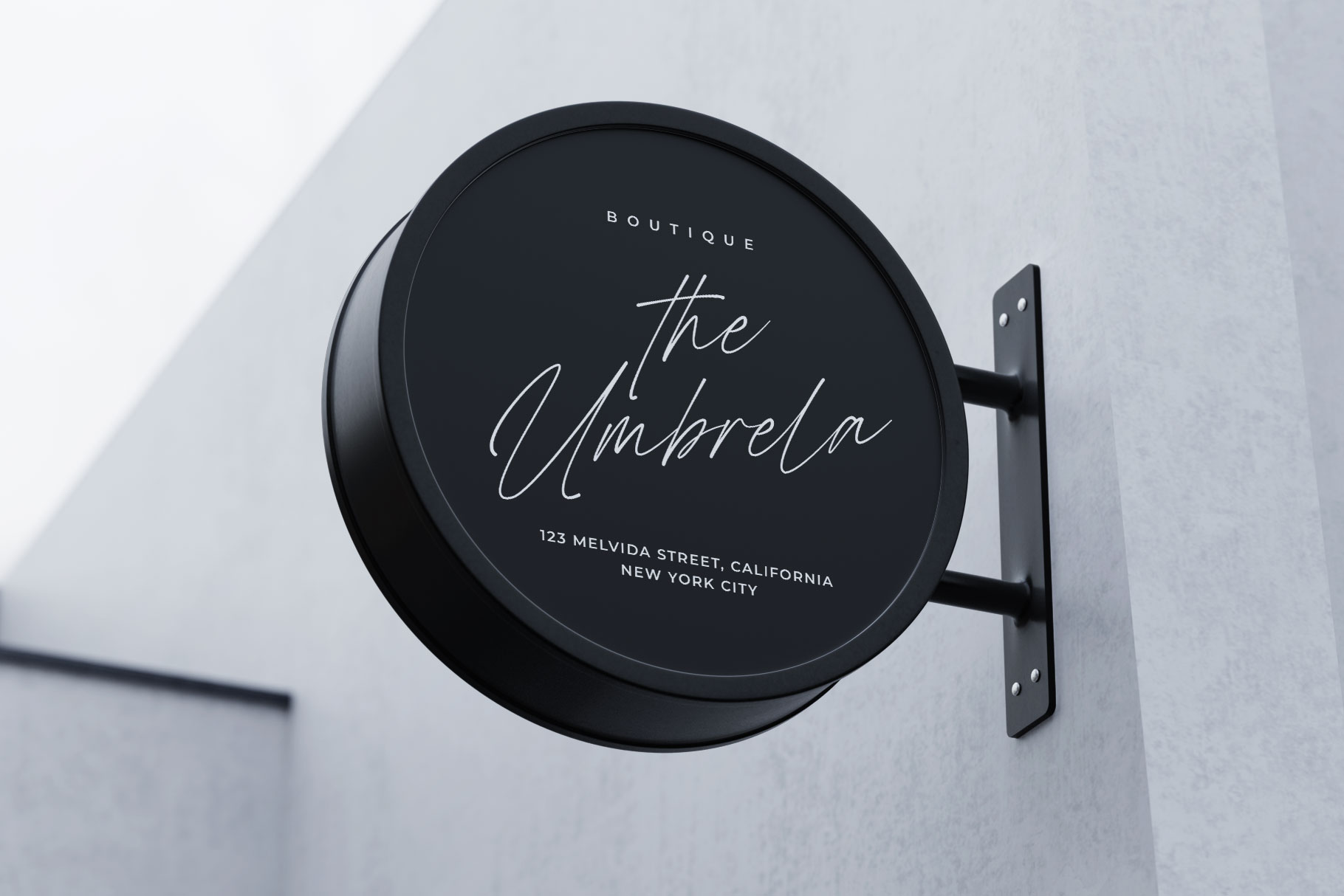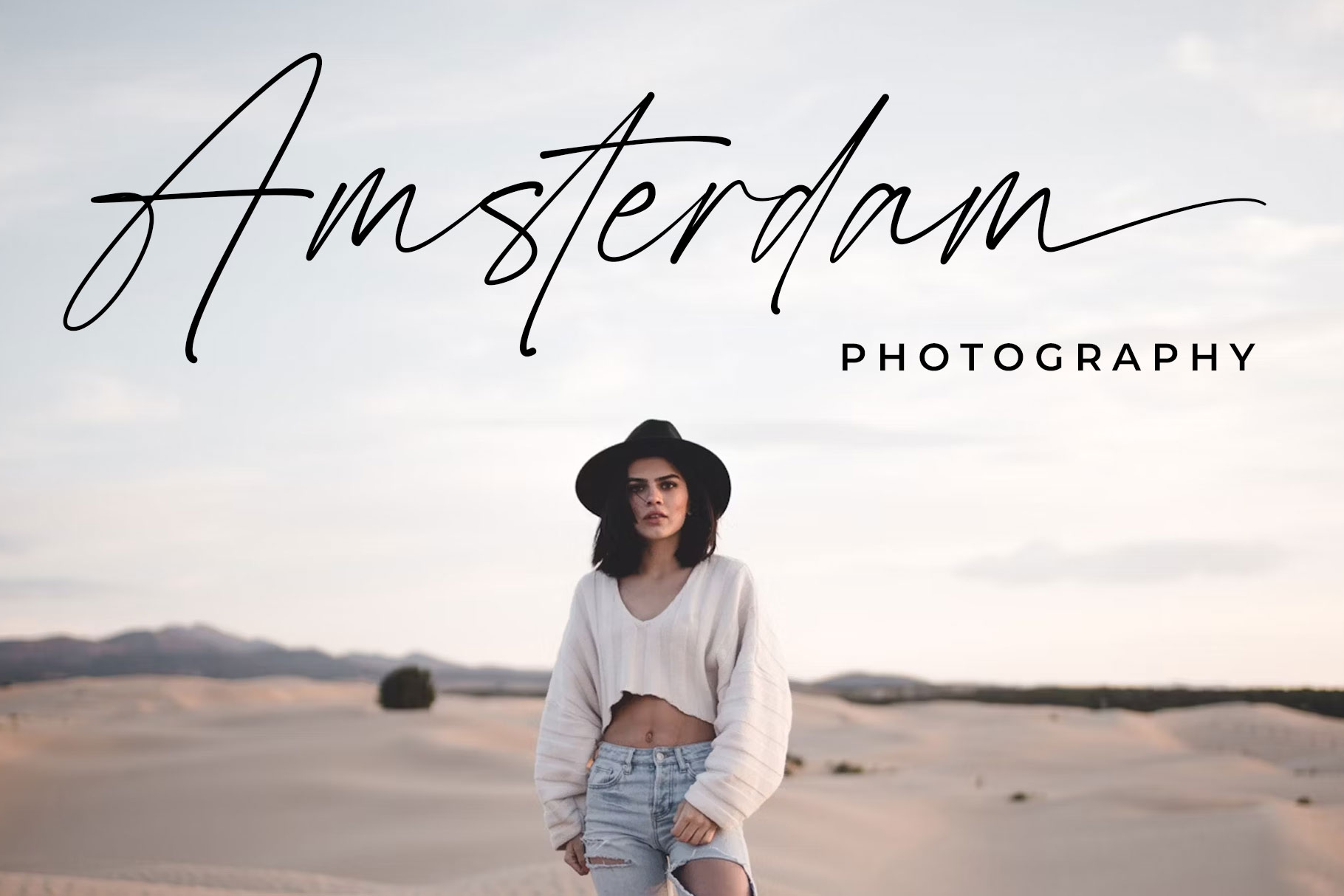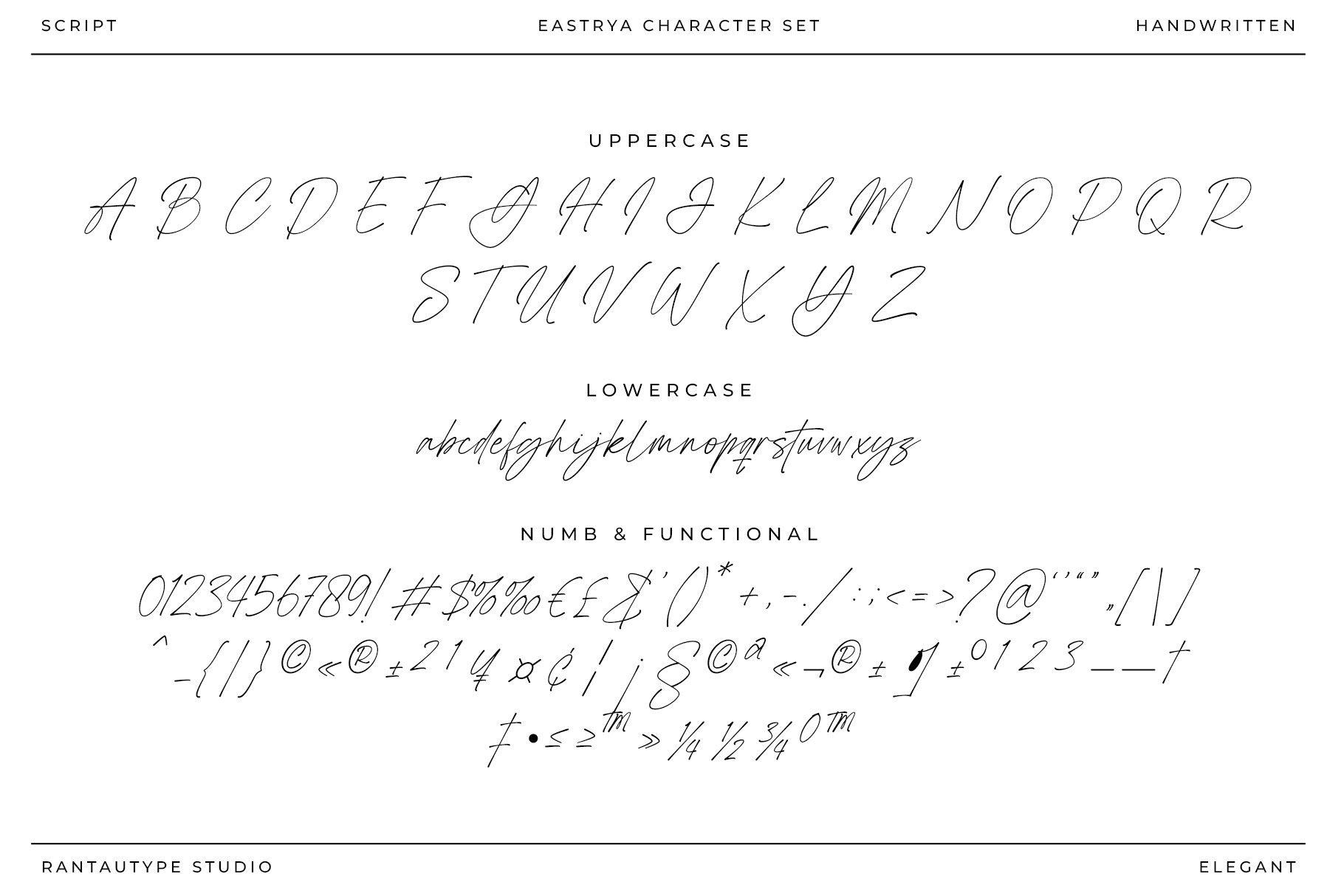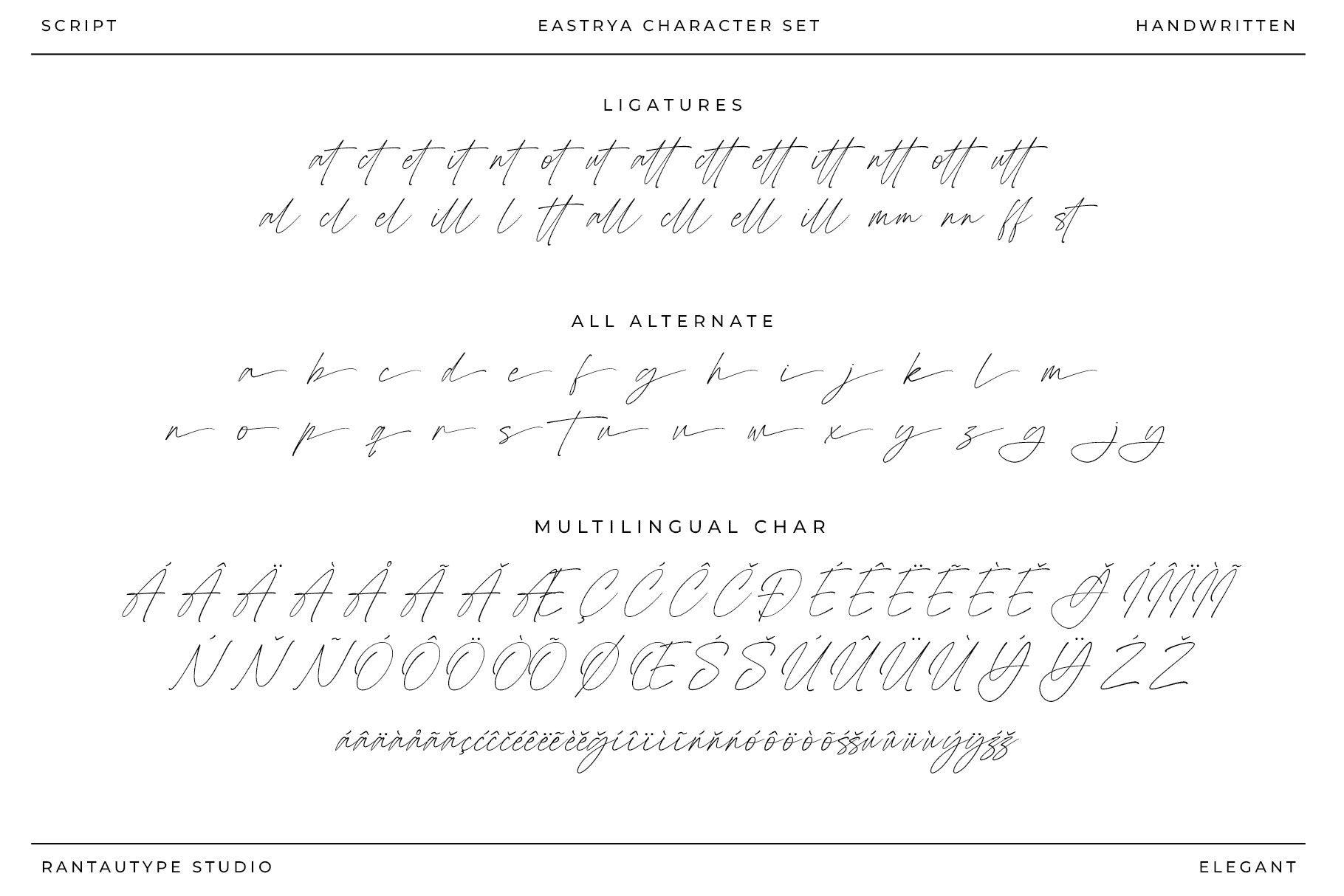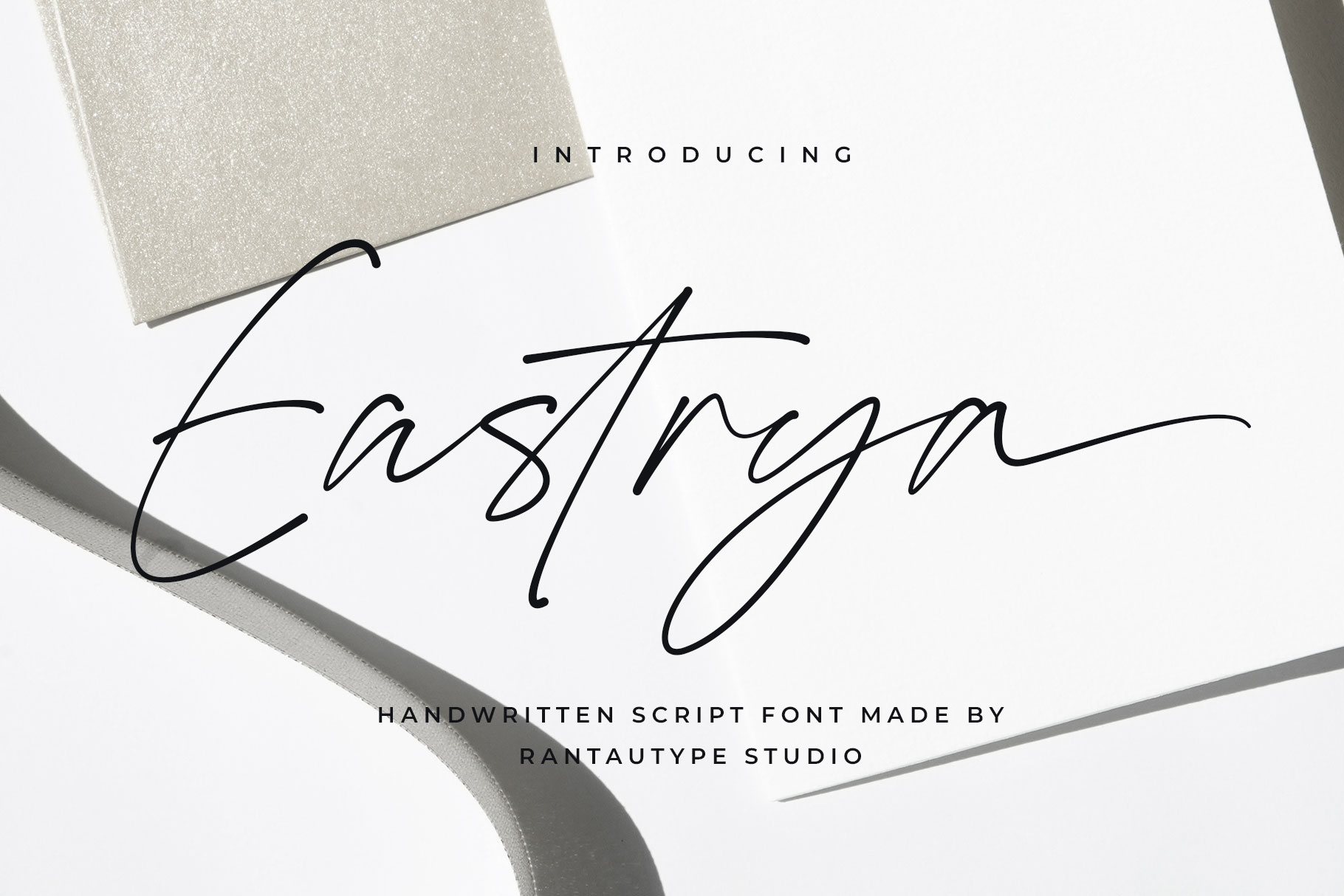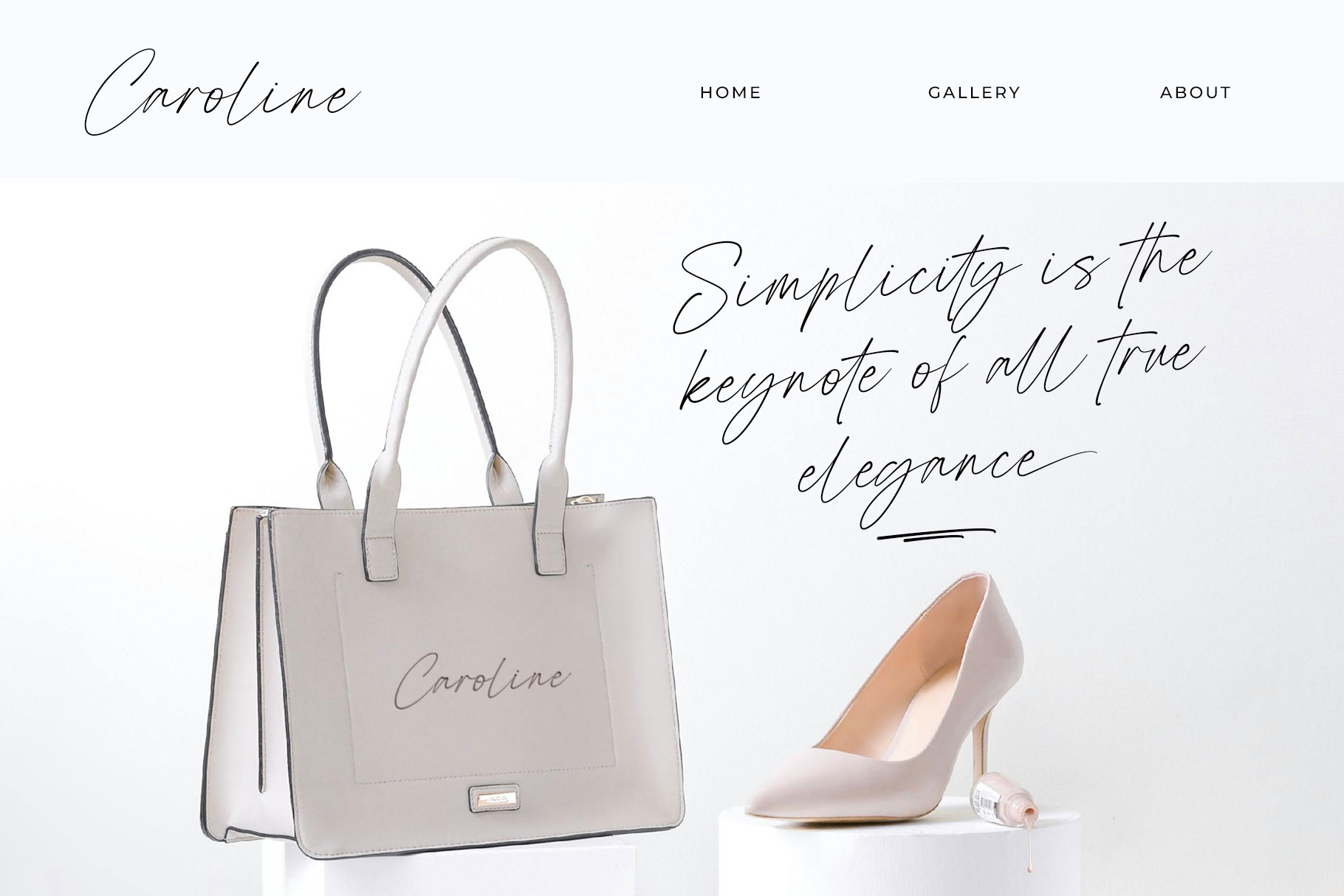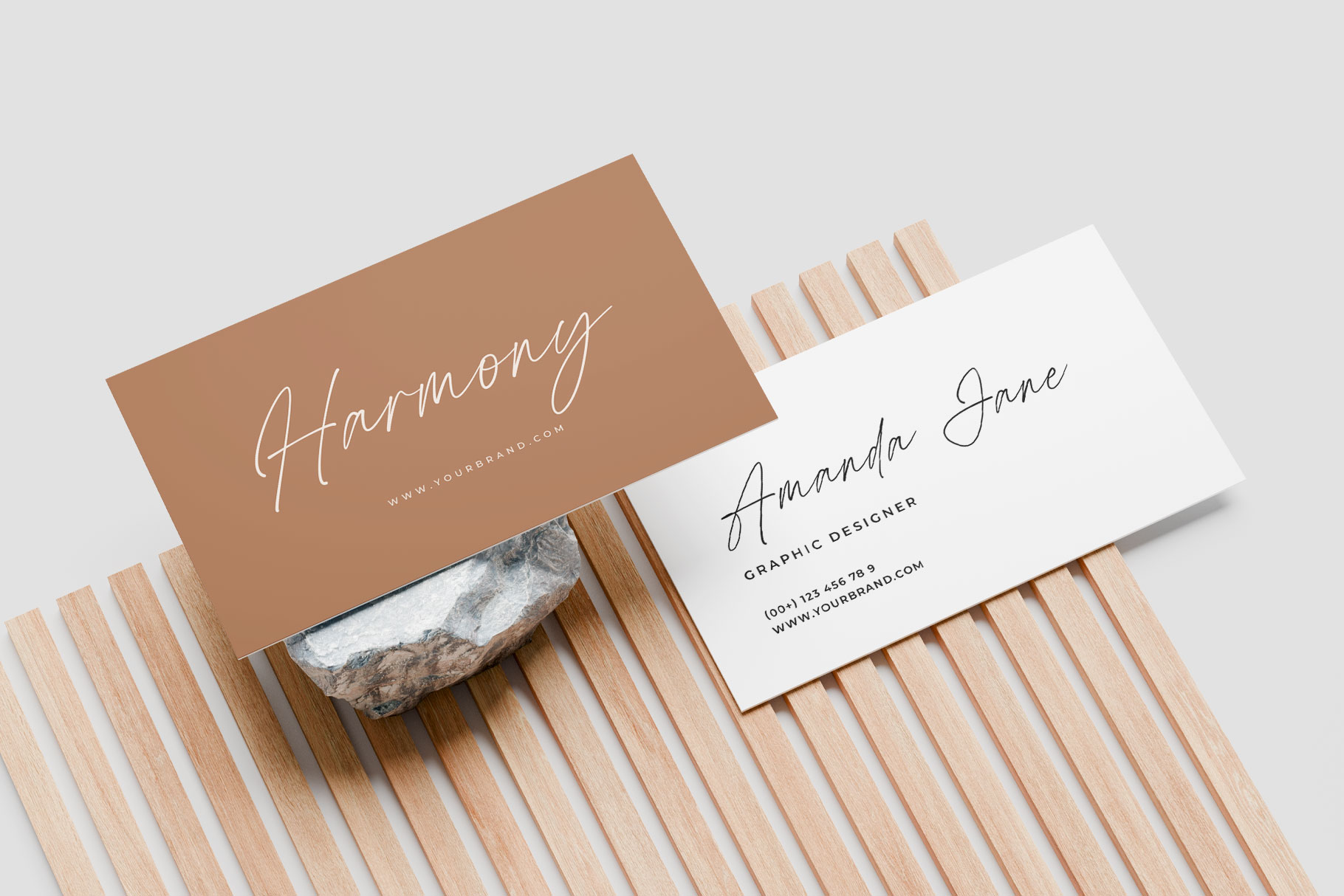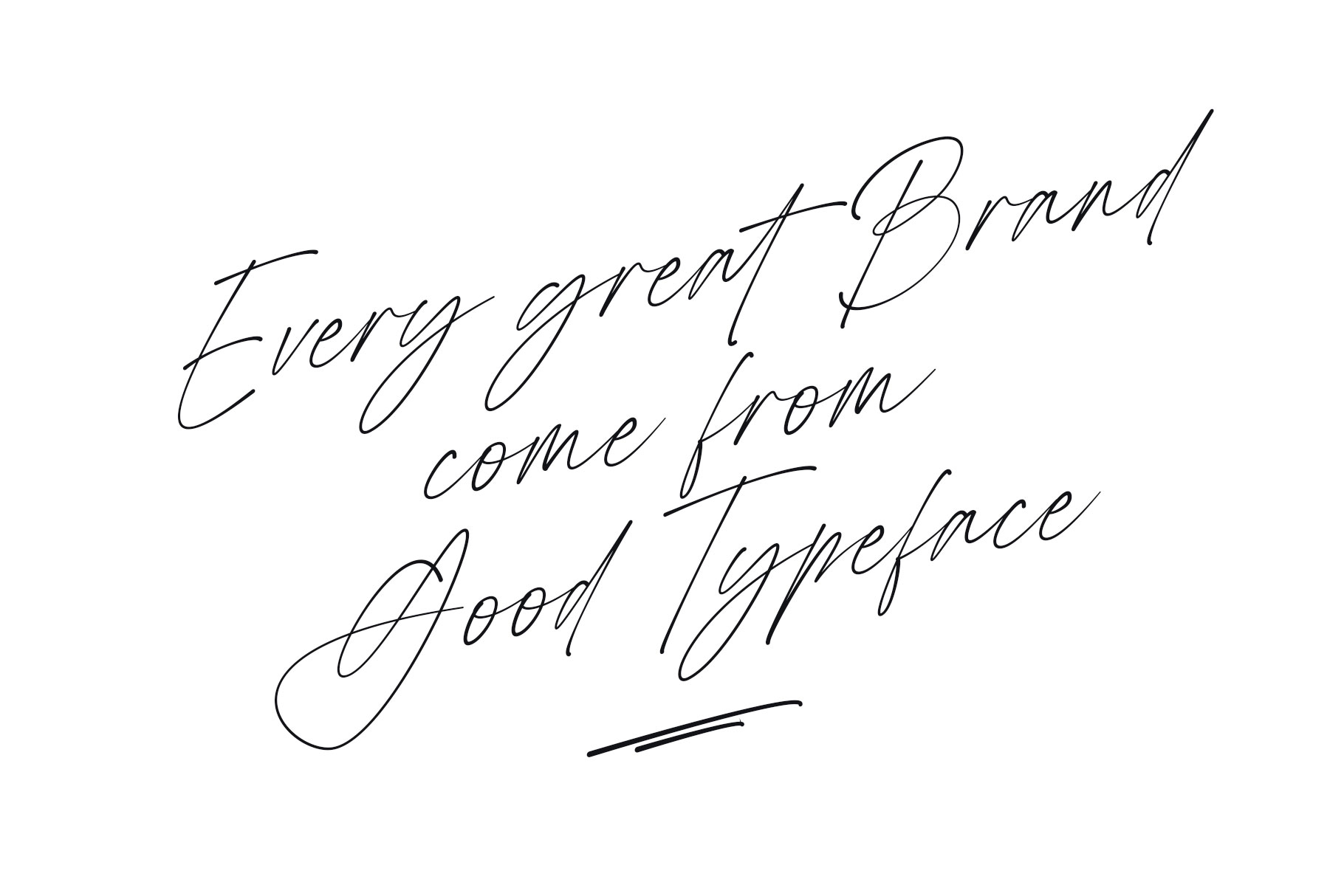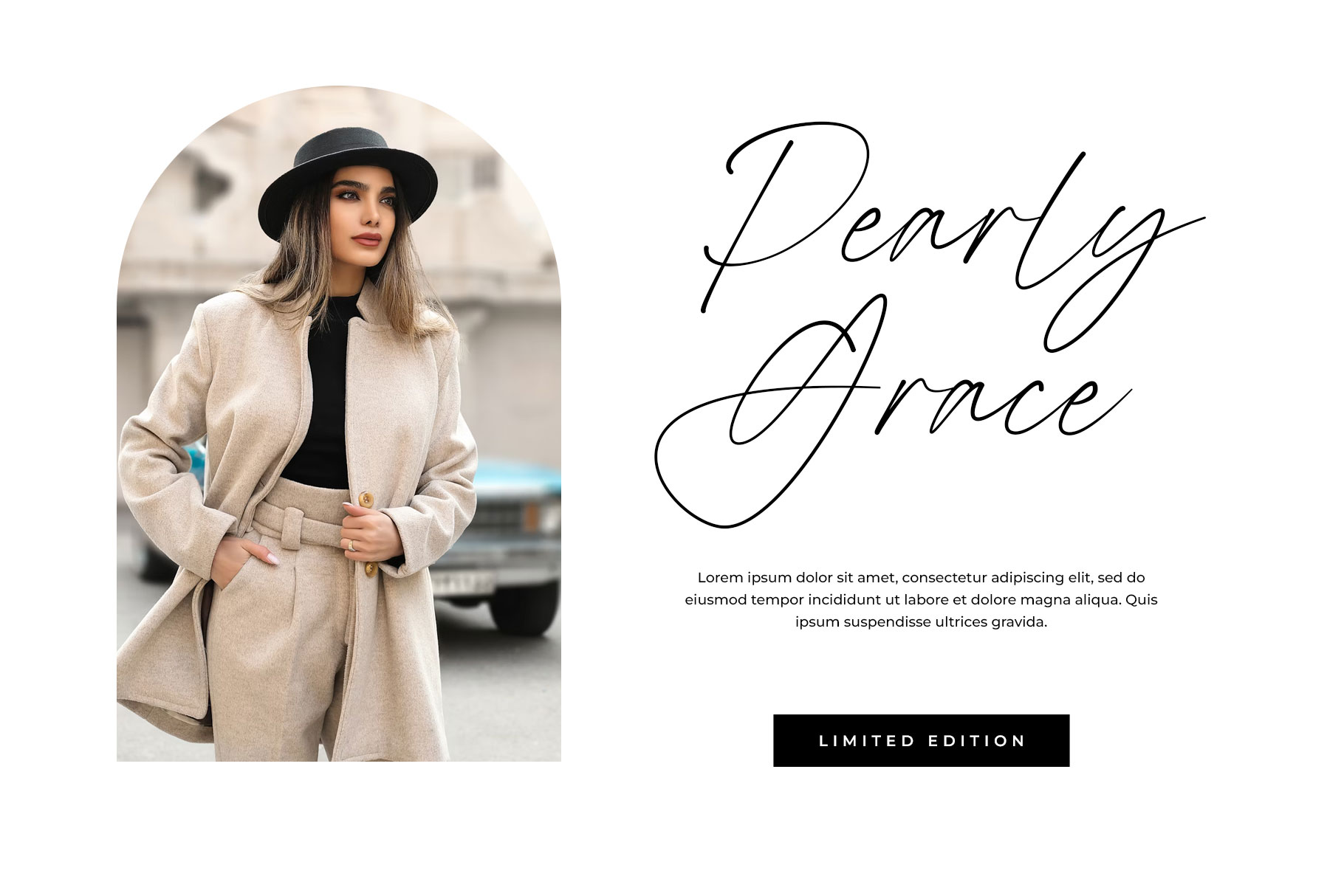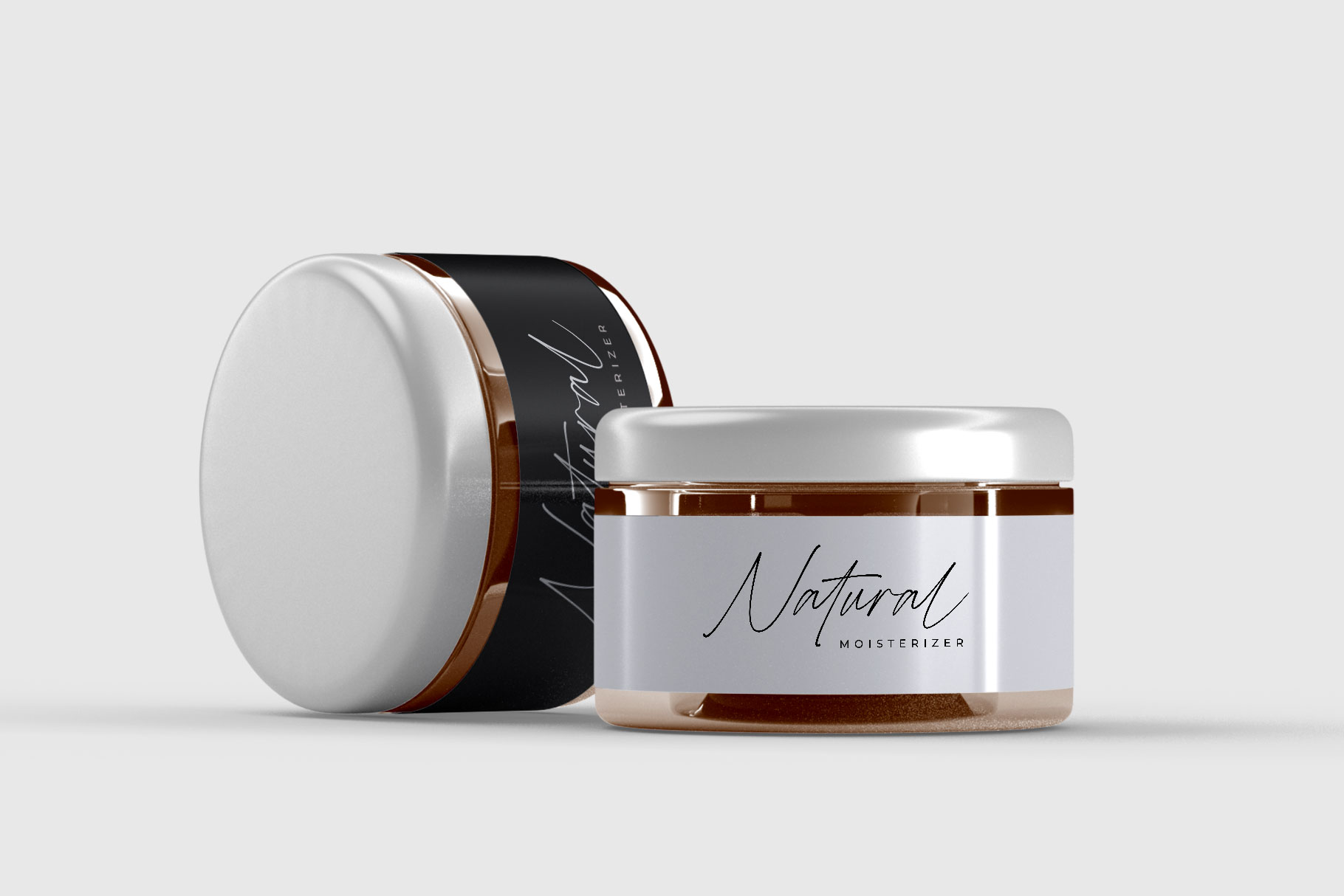
Eastrya Handwritten Script Font
Eastrya is elegant and classy handwritten font made with love and passion. Eastrya is a professional choice for any creative endeavor, creating elegant, modern, chic, lifestyle design such as logotype, title, cover, branding, invitations, wedding designs, display and magazine, social media posts, advertisements, printed quotes, product packaging, corporate brand, product designs, labels, photography, watermarks, special events and any other project with handwritten touch.